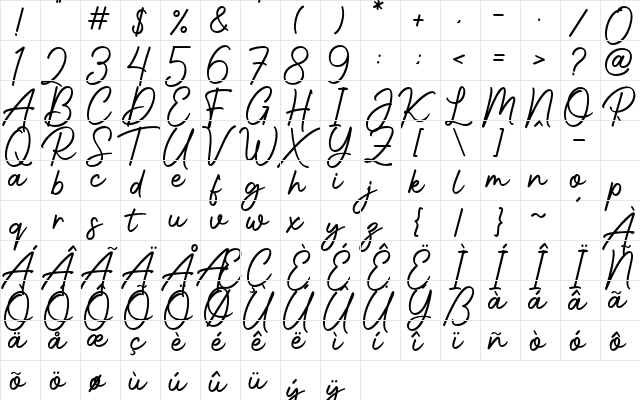
Photoshoot Regular
| Foundry | Suby Studio |
| Designer | Teguh Subiyantoro |
Design Context for Photoshoot Typeface
Photoshoot is a composed and adaptable typeface that performs quietly and consistently across a wide range of design contexts.